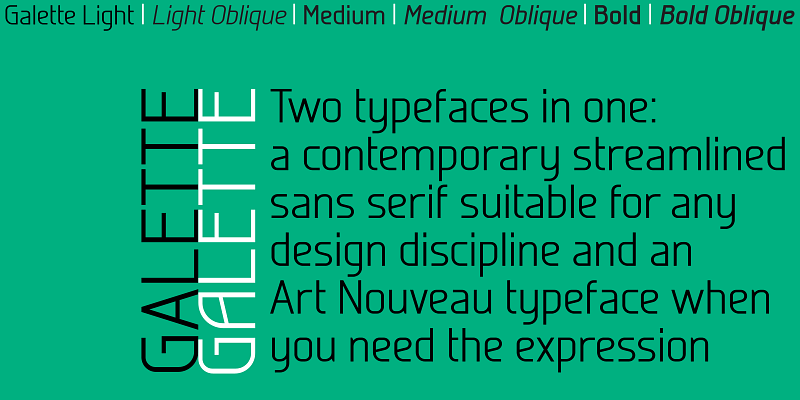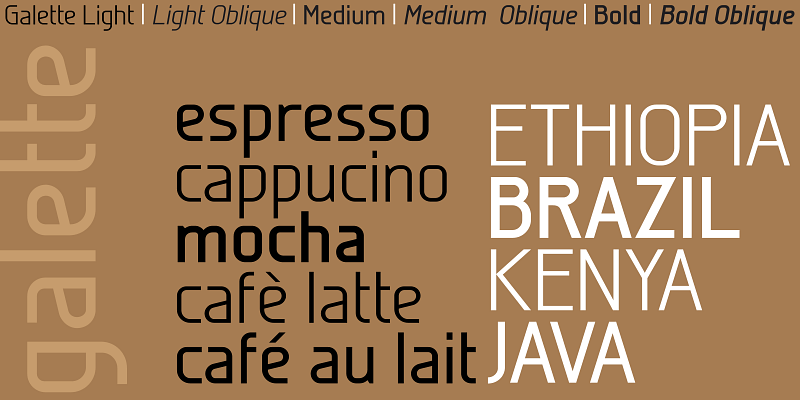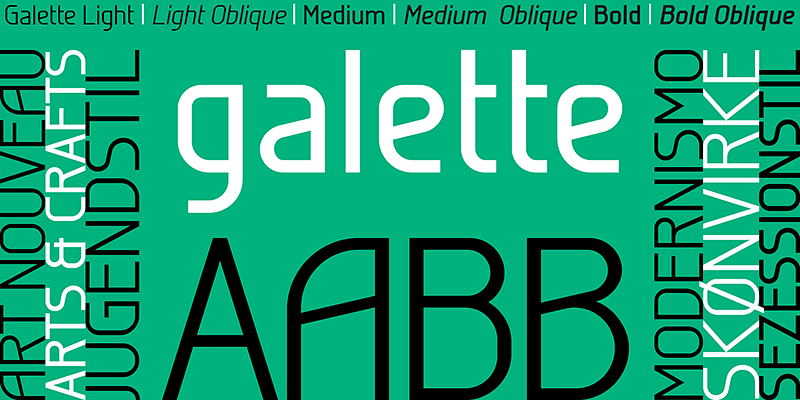
Galette is a contemporary all-purpose sans-serif typeface with a hint of Art Nouveau. It allows the use of one layout both as printed material and online without loss of quality or legibility. Not only a high resolution printing font with extensive kerning, it was designed from the ground up for clear and uniform display on the computer screen. It displays more predictably than the traditional fonts: no overhangs are used, the stroke thickness of capitals and lower case letters is identical, making hinting or antialiasing smoother at any point size and zoom combination.